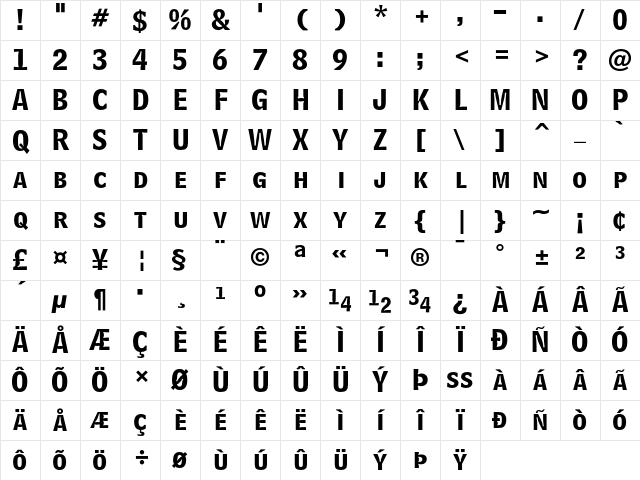
Bell Centennial Bold Listing Alternate
Style: Bold Listing Alternate
Bell Centennial Family
Complete Bell Centennial Bold Listing Alternate glyph index. Displaying only characters natively supported by Bell Centennial Bold Listing Alternate font.
Design Context for Bell Centennial
Bell Centennial is a composed and adaptable typeface that performs quietly and consistently across a wide range of design contexts. Its bold stroke weight gives it real presence on the page.